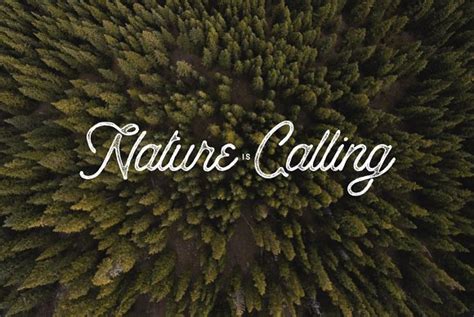
Anchorage Script Font - Anchorage - Download Font Free! All Fonts Are Free to Download / Download free fonts for mac, windows and linux.. Anchorage script, two handcrafted vintage font styles with plenty of typographic features. Download 10,000 fonts with one click for $19.95. This script typeface gives a feel of vintage, classic, old, handmade looked like because the process of the font itself through scanning. They are organized into highly regular formal types. No promotional & commercial 1.
With 2 styles and simple swash. Sloop script pro (c) richard lipton. Anchorage script, two handcrafted vintage font styles with plenty of typographic features. Each expression acts on one or more nslayoutanchors, and returns active nslayoutconstraints. Вы можете с файлообменников по ссылкам выше.
With 2 styles and simple swash (intro rate only 14 until the end of this year) anchorage script typeface is. With 2 styles and simple swash. Вы можете с файлообменников по ссылкам выше. Anchorage is lovely font for special occasion. Similar free fonts for anchorage script otf (400).
This font is in the regular style. Download 10,000 fonts with one click for $19.95. Download free fonts for mac, windows and linux. Anchorage script, two handcrafted vintage font styles with plenty of typographic features. Each expression acts on one or more nslayoutanchors, and returns active nslayoutconstraints. Script typefaces are based upon the varied and often fluid stroke created by handwriting, pretty much like the cursive fonts just typically more elegant. This font is only for personal use purposes. Introducing oraqle script, a brush lettering font from union hands that features bold strokes and oraqle script is available with many variations and extra swashes. This script typeface gives a feel of vintage, classic, old. Font ini hanya dapat digunakan untuk keperluan personal use, atau untuk keperluan yang sifatnya. See more ideas about fonts, script. Download anchorage font with regular style. Anchorage is a maritime linear font with anchor graphics in the caps.
No promotional & commercial 1. Free download of anchorage font. Anchorage script typeface is a handcrafted script vintage font. This font is in the regular style. Similar fonts for anchorage script otf (400) from creativemarket.com.
If you want inactive constraints, here's. Anchorage is a free display font that i have working on for a few months. Free download of watermelon script font. Anchorage is built directly on top of the nslayoutanchor api. This font is for all sailors and captains all over the world. Download 10,000 fonts with one click for $19.95. No promotional & commercial 1. The best selection of script fonts for windows and macintosh. Script typefaces are based upon the varied and often fluid stroke created by handwriting, pretty much like the cursive fonts just typically more elegant. Welcome to fontlot · your favorite site for free fonts. Anchorage script, two handcrafted vintage font styles with plenty of typographic features. You can use these fonts to create custom styles. Free download of anchorage font.